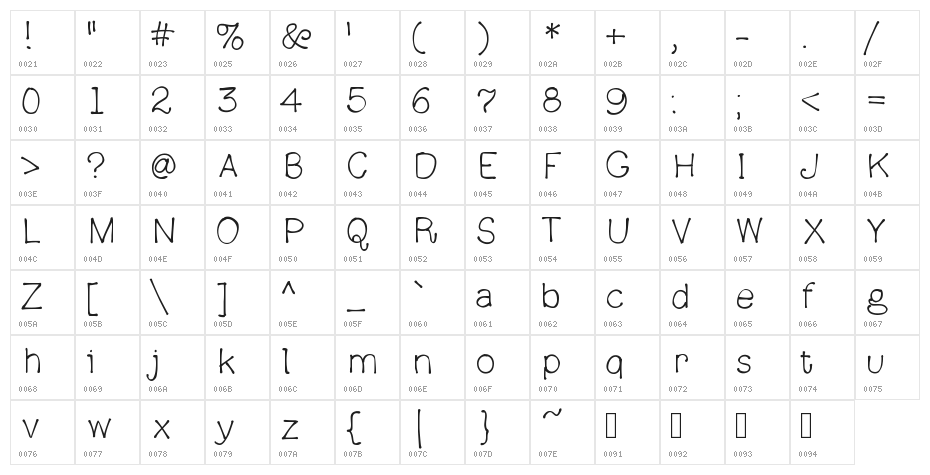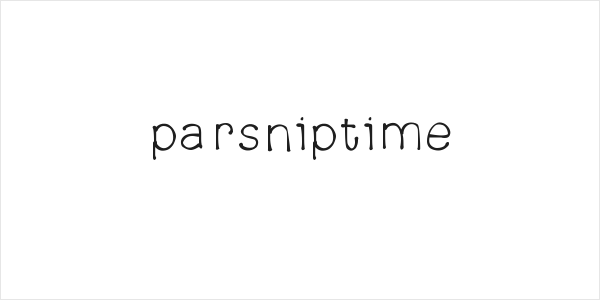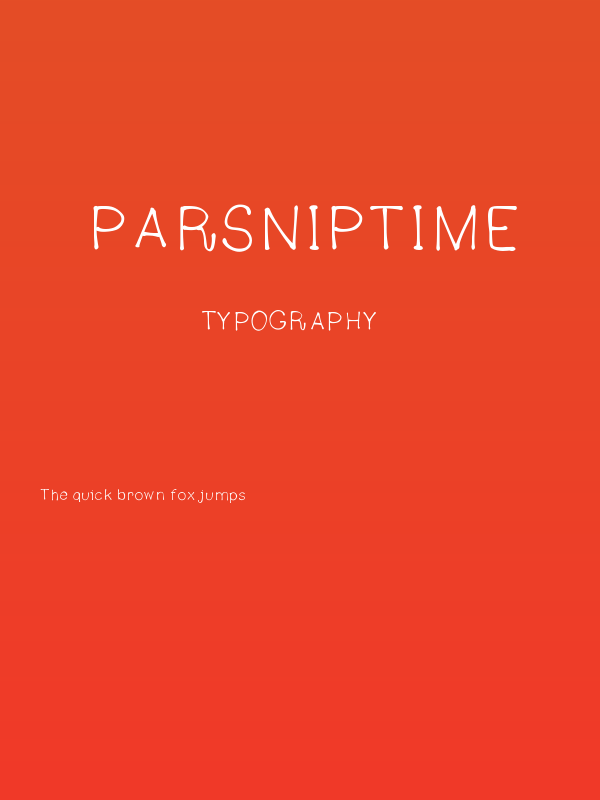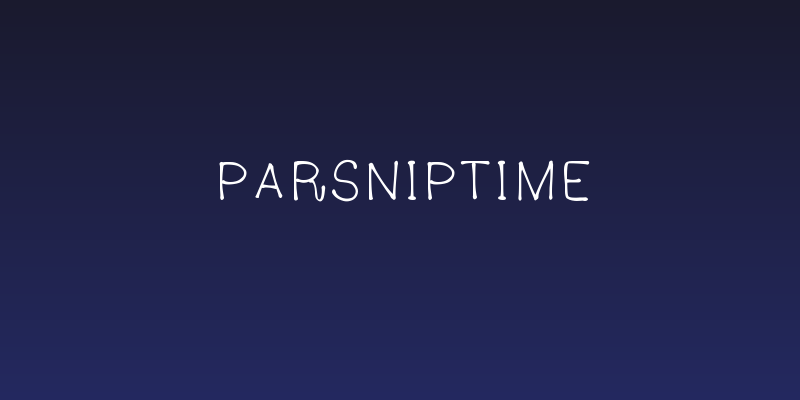
parsniptime Font
parsniptime Description
This playful and whimsical font features a hand-drawn style with irregular, slightly wavy lines that give it a casual and friendly appearance. The characters are rounded and uneven, adding a sense of charm and personality. The uppercase and lowercase letters maintain a consistent style, with the lowercase 'g' and 'y' having distinctive loops. The numerals are quirky and match the overall playful theme. Special characters are creatively designed, maintaining the font's unique aesthetic. This font is ideal for projects that require a fun and informal touch.
| Proposed Projects | Ideal for children's books, greeting cards, playful branding, and casual invitations. |